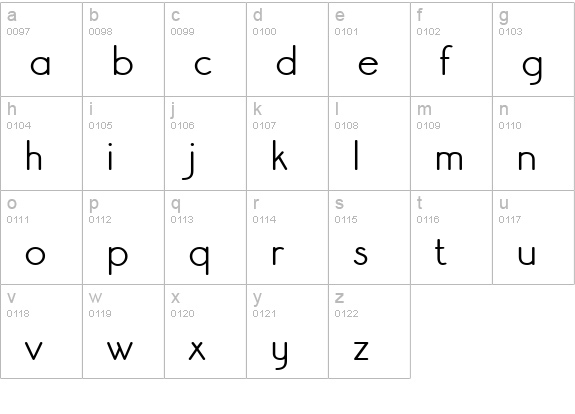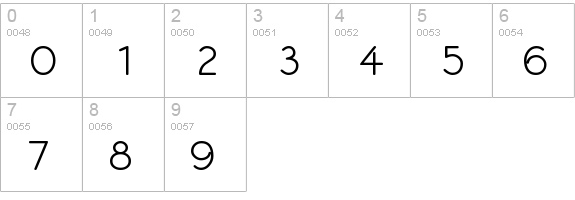
Register Sans BTN Dm Font Details
Register Sans BTN Dm is a sleek and modern sans-serif font that is perfect for a wide range of design projects. Its clean lines and balanced proportions give it a professional and sophisticated look, making it ideal for both print and digital applications. This versatile font family includes a range of weights and styles, allowing you to create beautiful and cohesive typography throughout your designs. Whether you need a bold headline or a subtle body text, Register Sans BTN Dm has got you covered. One of the best things about Register Sans BTN Dm is that it is completely free to download. You can easily access this font and start using it in your projects right away, without having to spend a dime. Simply head over to FontsMarket.com, a trusted source for high-quality fonts, and get your hands on Register Sans BTN Dm for free. With its wide range of weights and styles, Register Sans BTN Dm offers endless possibilities for your designs. Whether you're working on a branding project, a website, a poster, or any other creative endeavor, this font will help you achieve a clean and professional look. So why wait? Start using Register Sans BTN Dm today and elevate your designs to a whole new level. Download it for free at FontsMarket.com and let your creativity shine.